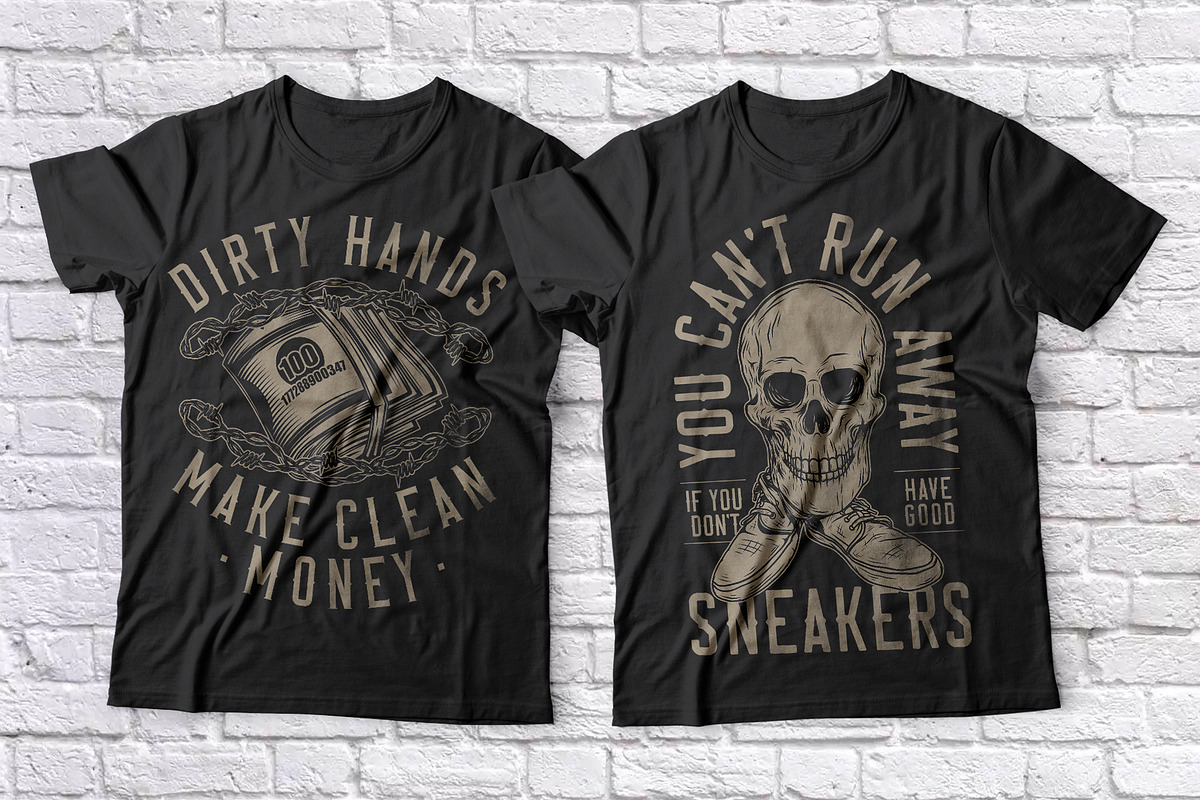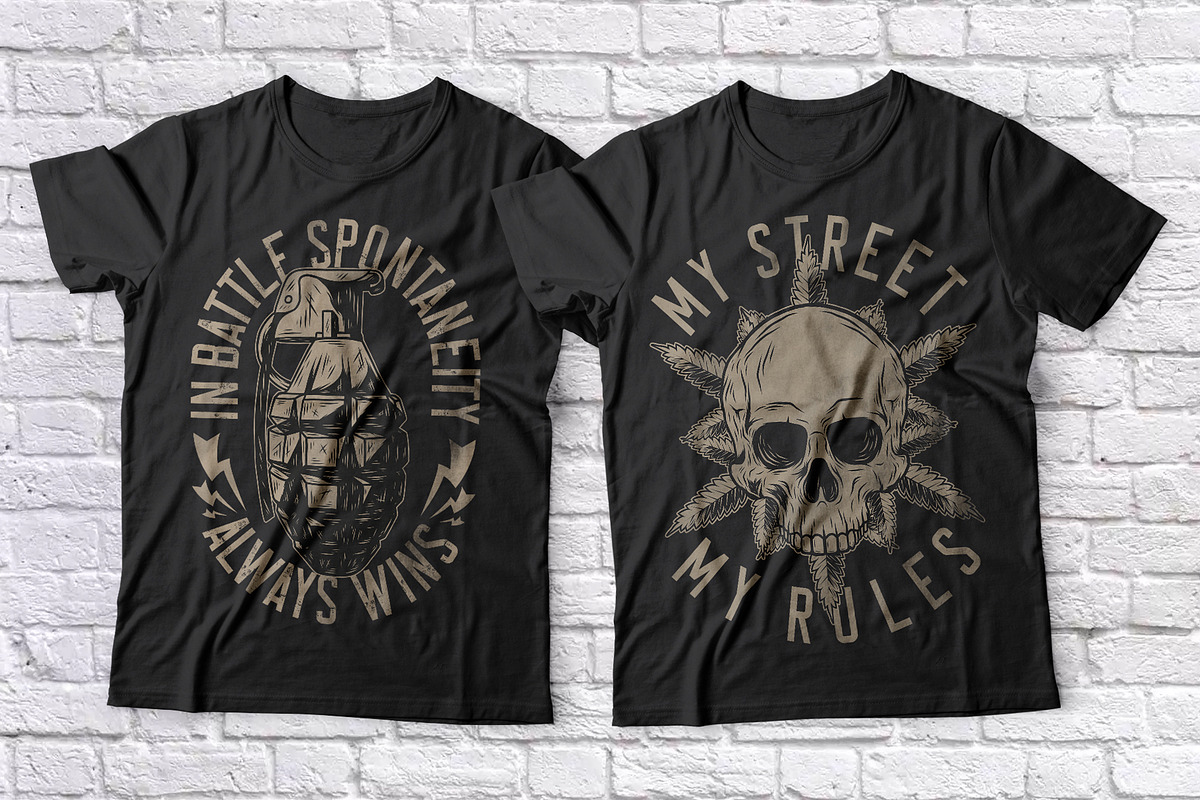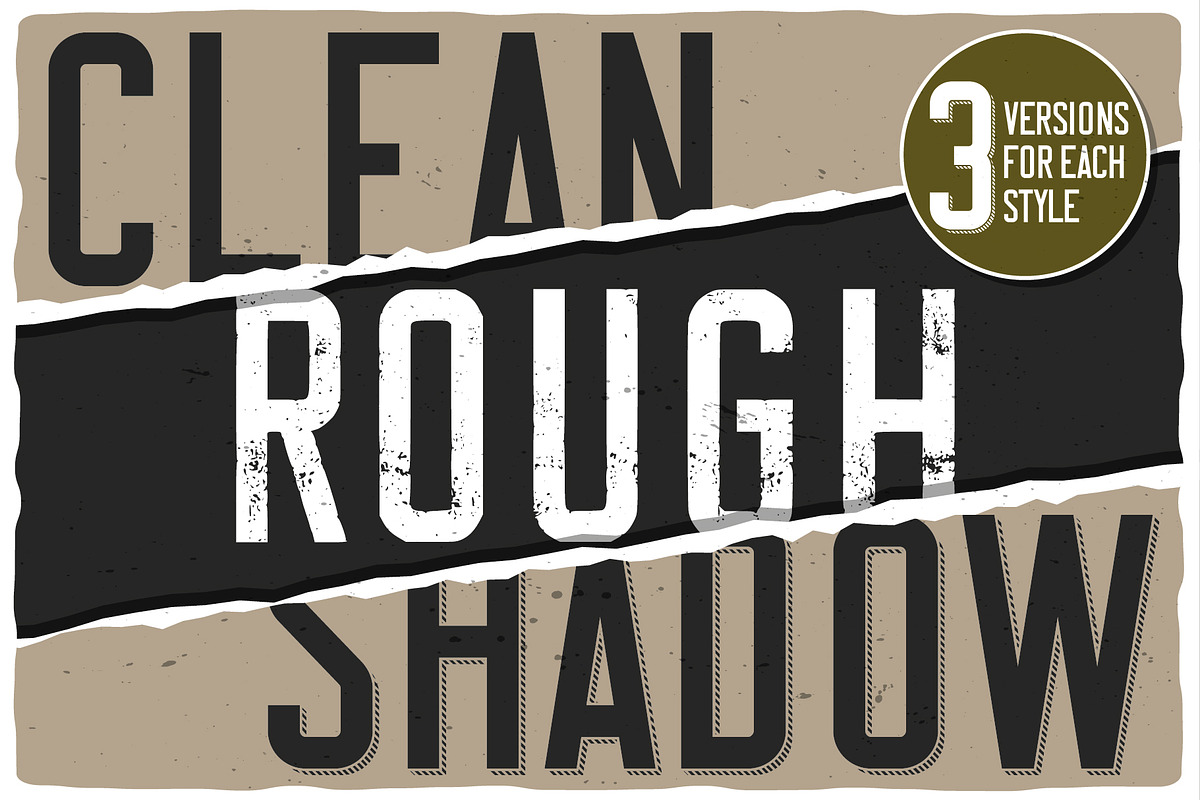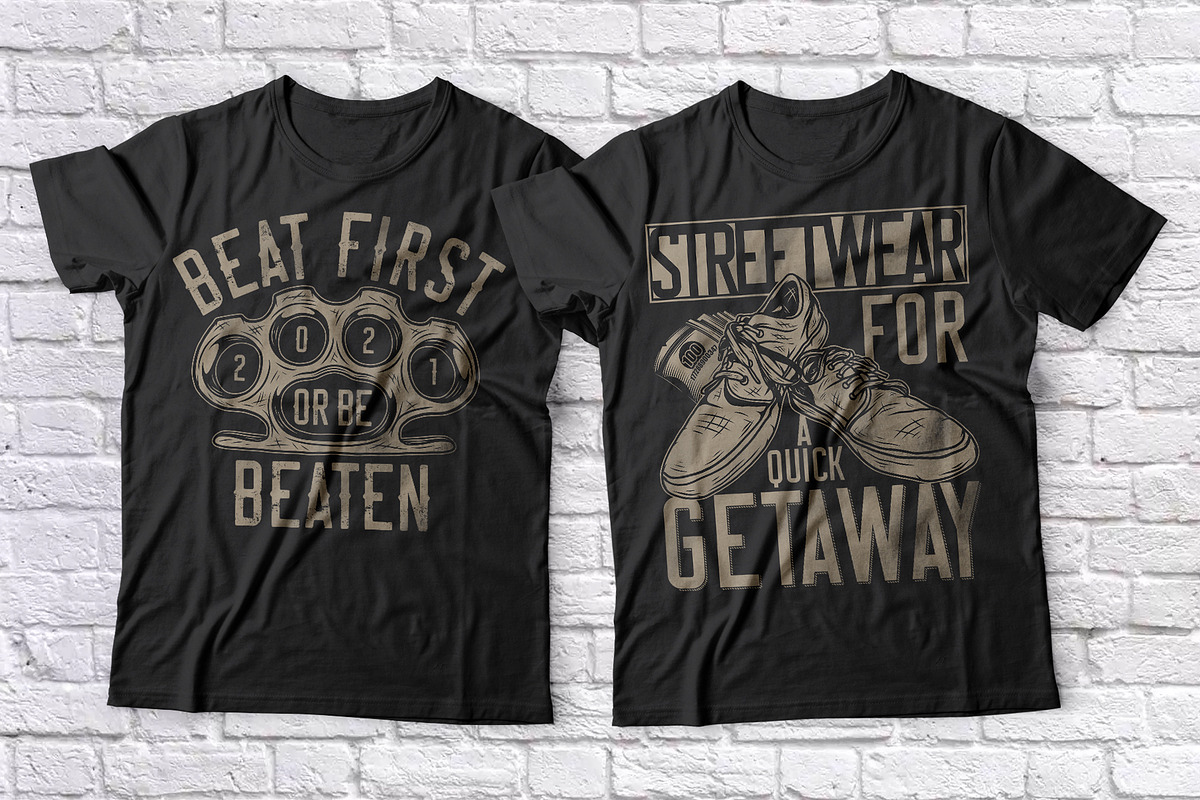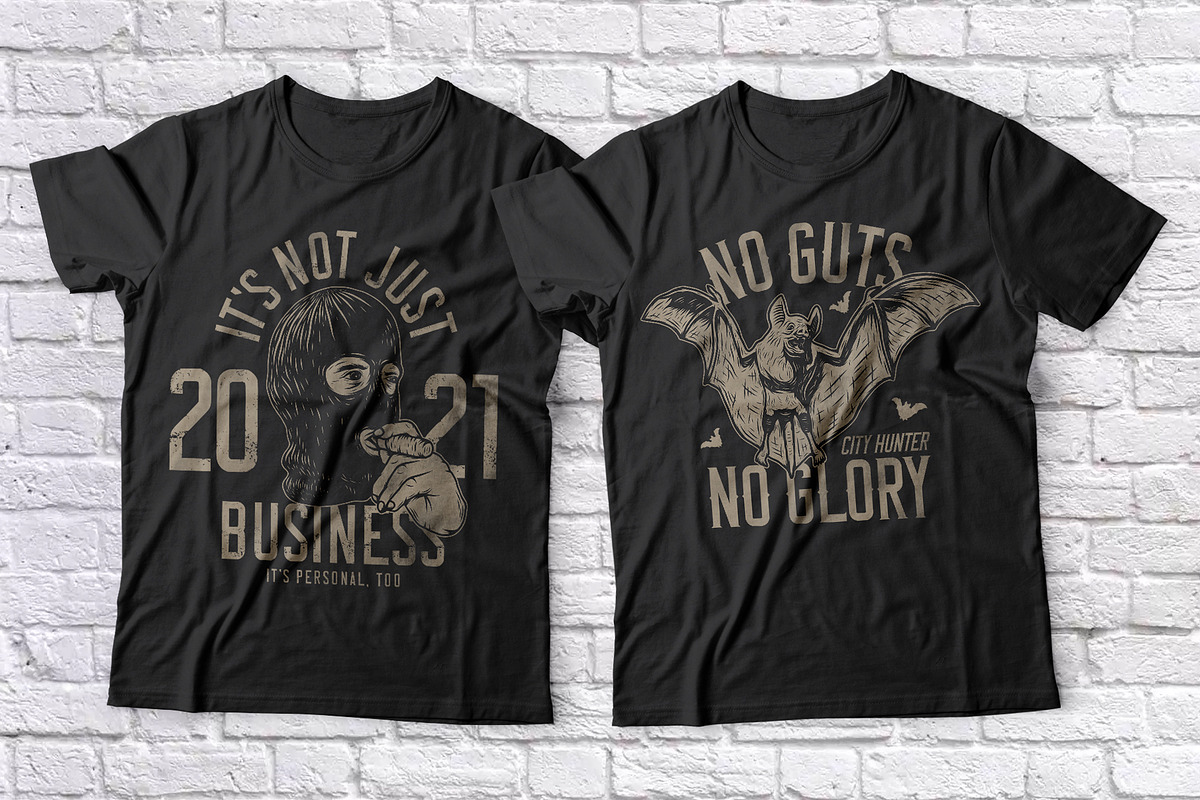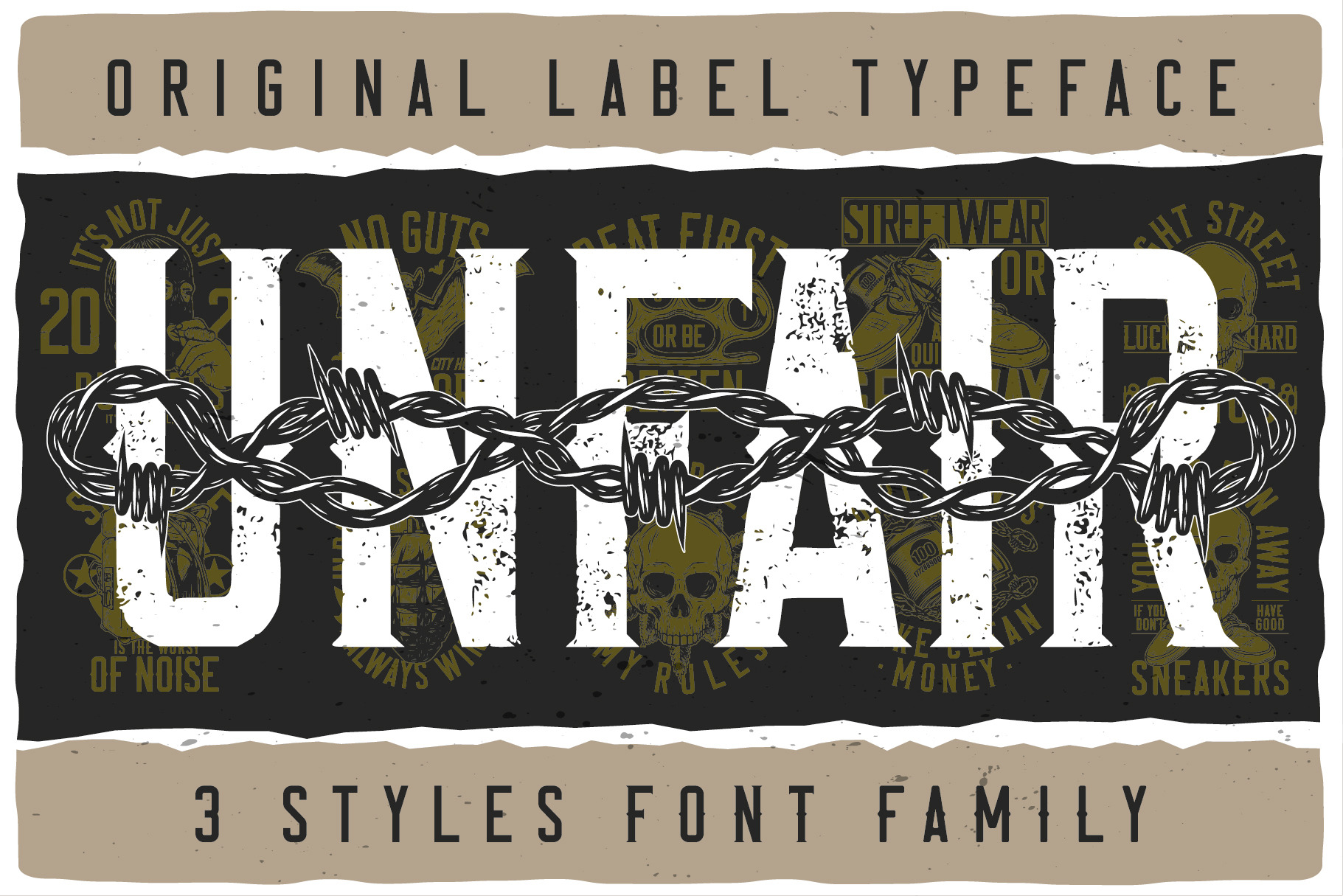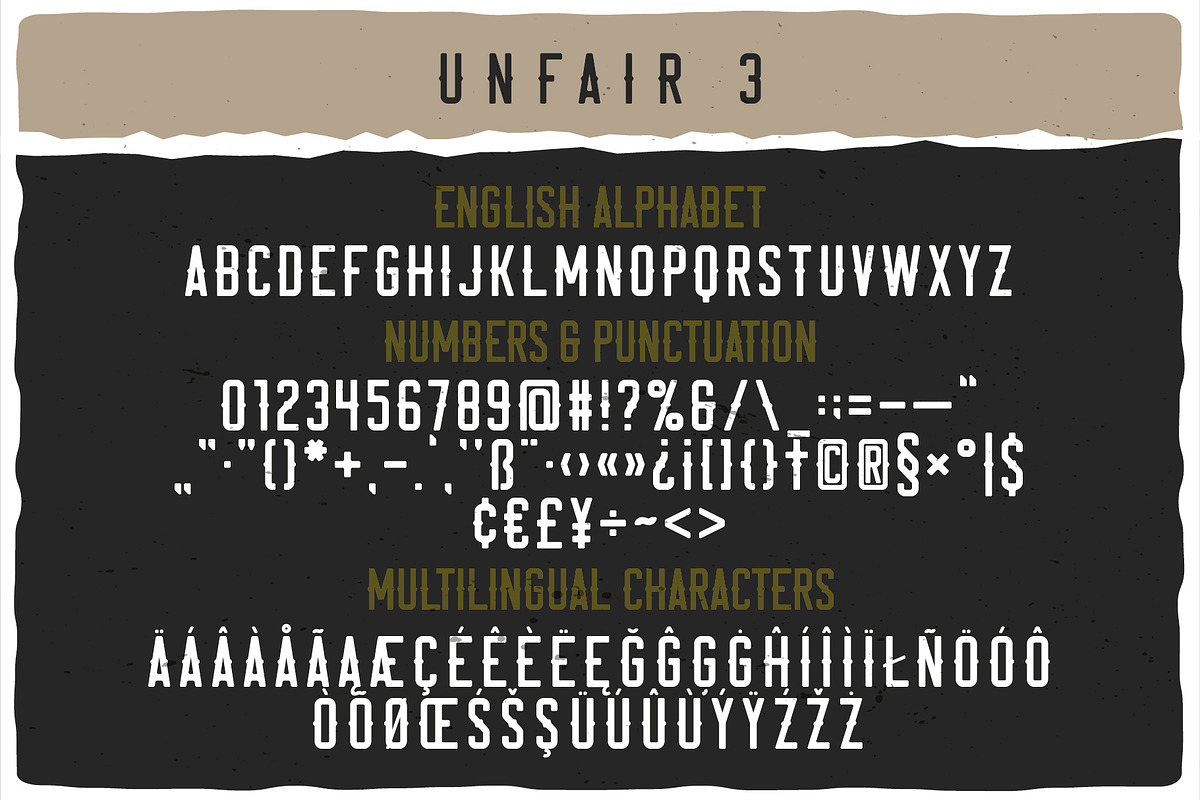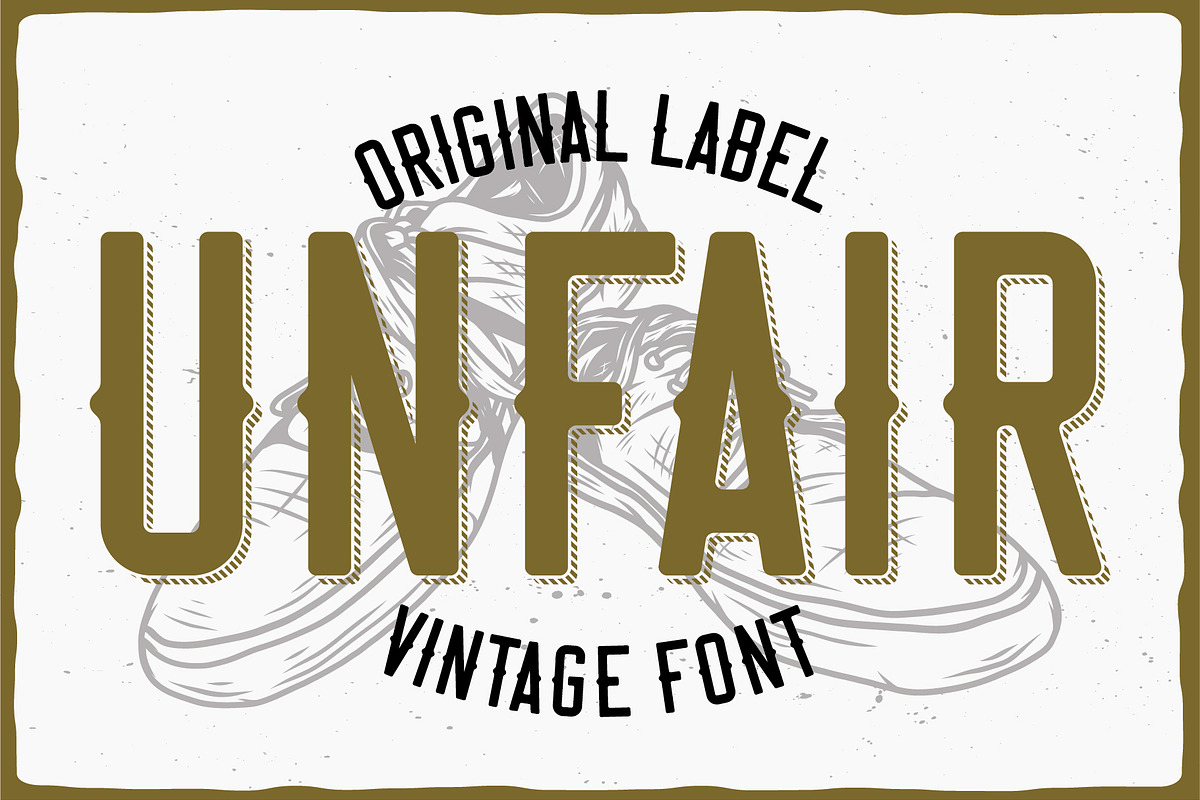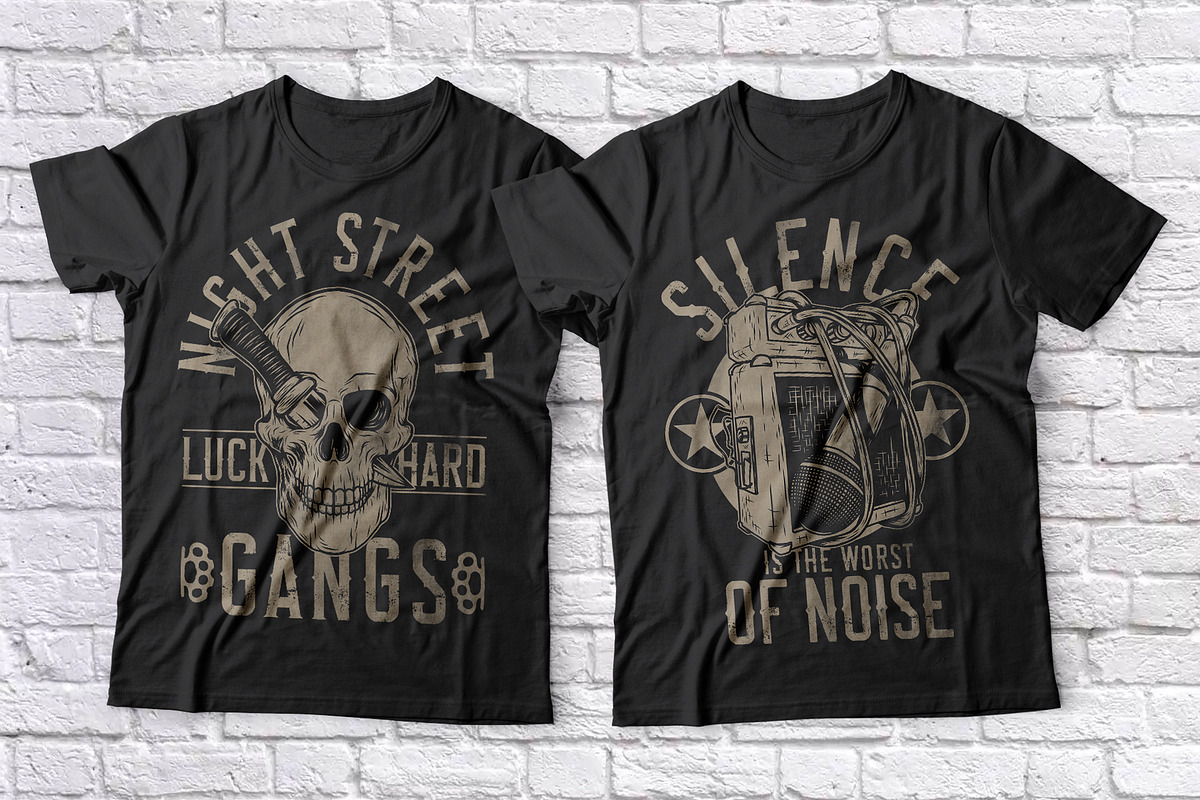
Unfair Font Family
Introducing a vintage look label font family named "Unfair". All available characters you can see at the screenshot. This font have 3 styles with 3 version of each - Regular, Shadow and Rough. This font will good viewed on any retro design like poster, t-shirt, label, logo etc.
- A lot of additional characters and multilingual support